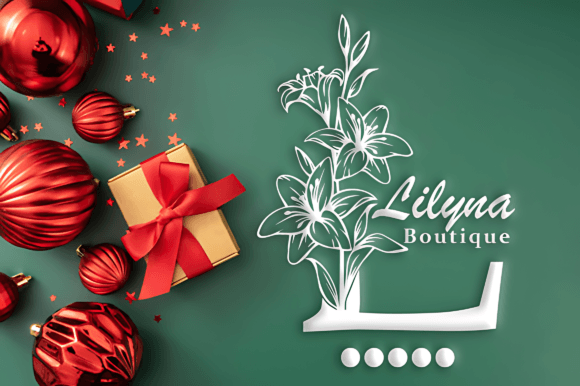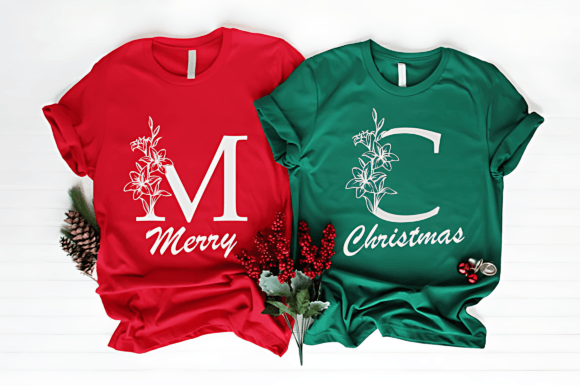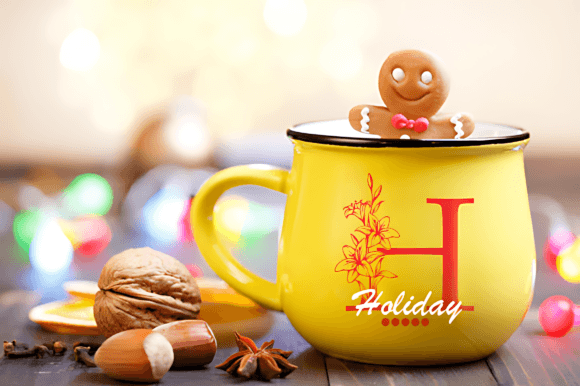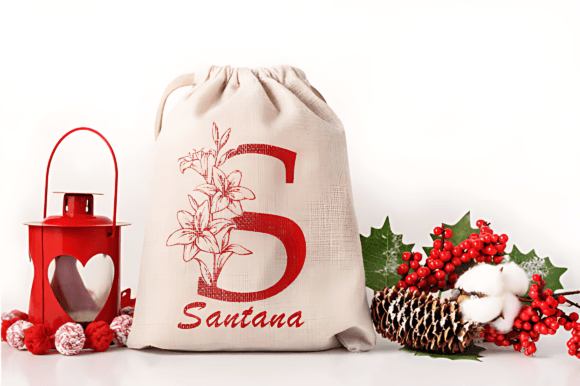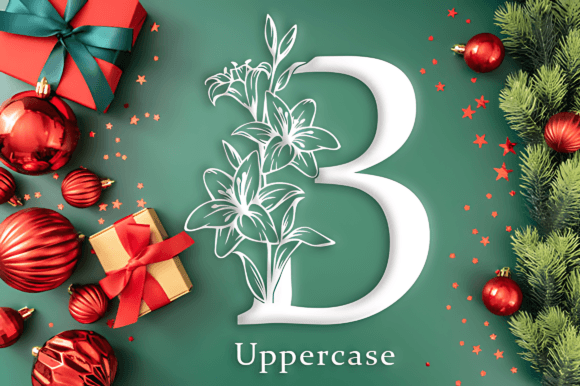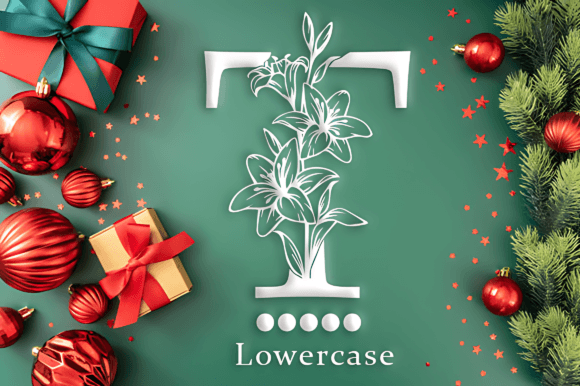
Introduction to Lily Christmas Monogram Font
Lily Christmas Monogram is an elegant decorative font, featuring lovely ornaments.
Fall in love with its authentic feel and use it to create gorgeous wedding invitations, beautiful stationary art, eye-catching social media posts, and cute greeting cards .